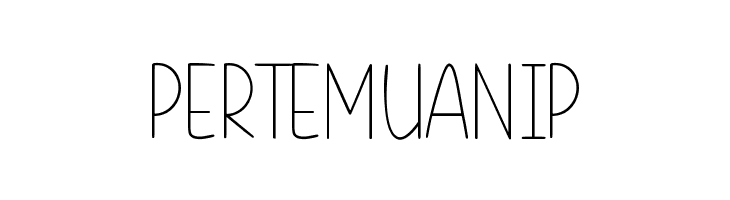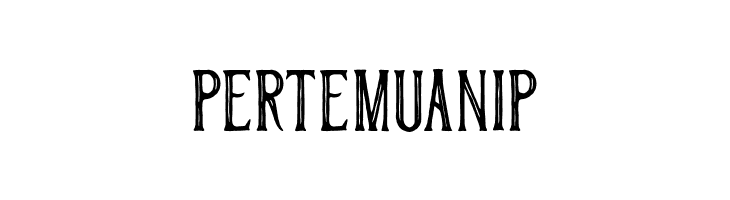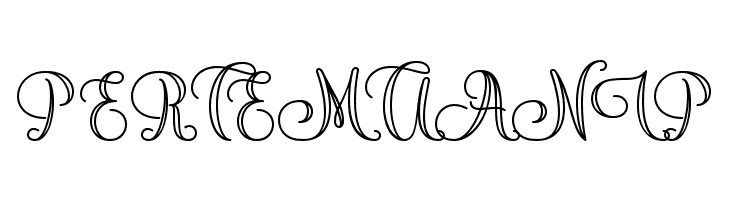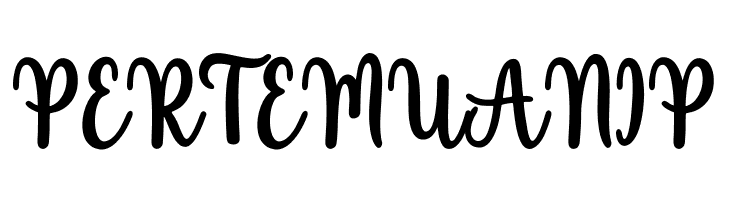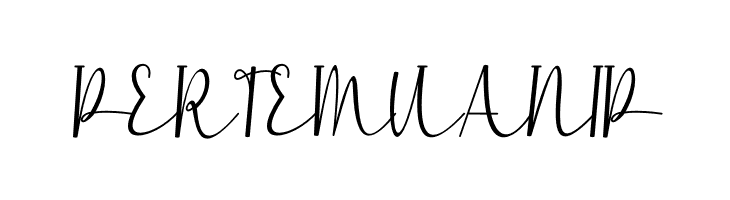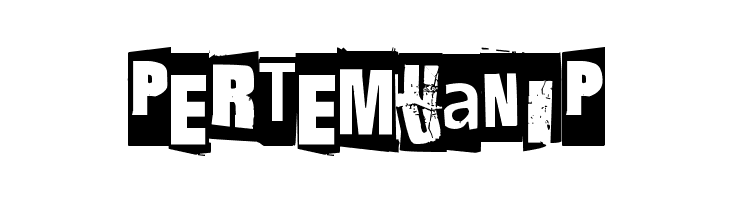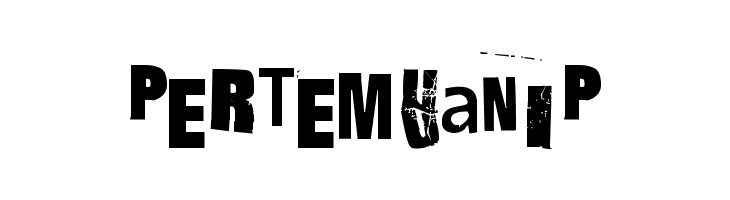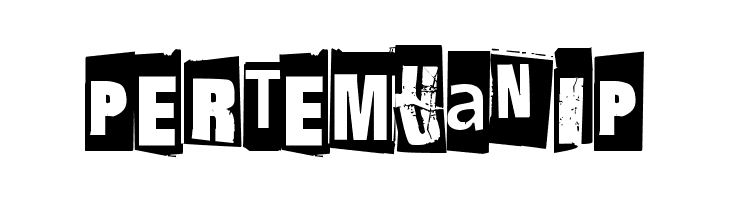
A graceful, handwritten font with elegant, flowing characters.
A vintage-style, inline font with a bold, hand-drawn appearance.
A vintage, decorative font with bold, artistic strokes and a handcrafted appearance.
A playful, hand-drawn font with tall, narrow letterforms and a whimsical style.
A playful and whimsical script font with bold, flowing letters.
A playful, handwritten script font with bold, connected letters.
An elegant and decorative script font with intricate loops and flourishes.
A bold, collage-style font with a punk rock, DIY aesthetic.
A bold, collage-style font with a punk rock, rebellious aesthetic.
A bold, distressed font with a rebellious, punk aesthetic.